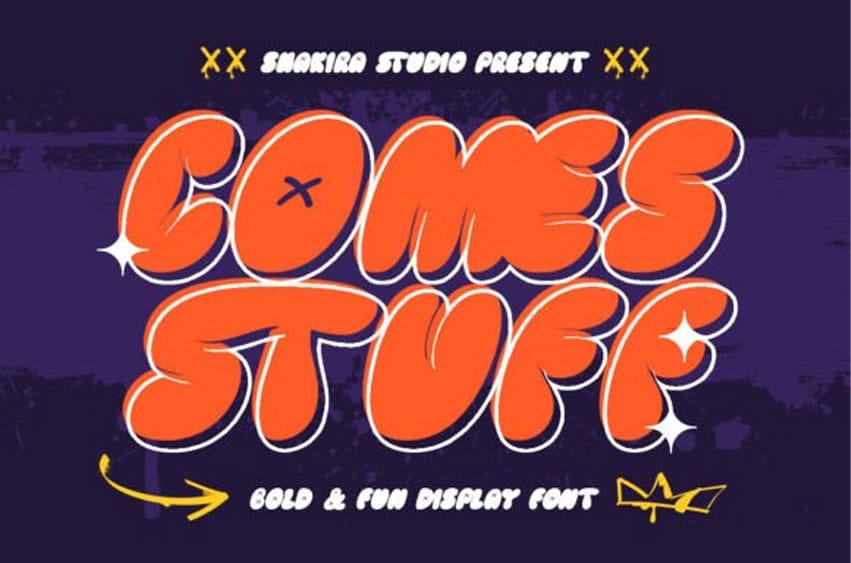
Comes Stuff Font Fun & Bubbly Display Font for Playful Branding. Comes Stuff is an energetic display font bursting with cheerful personality and rounded charm. With its playful bubble-like letterforms and whimsical appeal, this typeface is perfect for creating eye-catching branding, fun logos, vibrant packaging, and lively poster designs that spark joy.
Where Playfulness Meets Professional Design
With its soft, rounded edges and happy-go-lucky aesthetic, Comes Stuff delivers instant fun while maintaining excellent readability. The font’s approachable character makes it ideal for brands targeting younger audiences or those wanting to project a friendly, upbeat image.